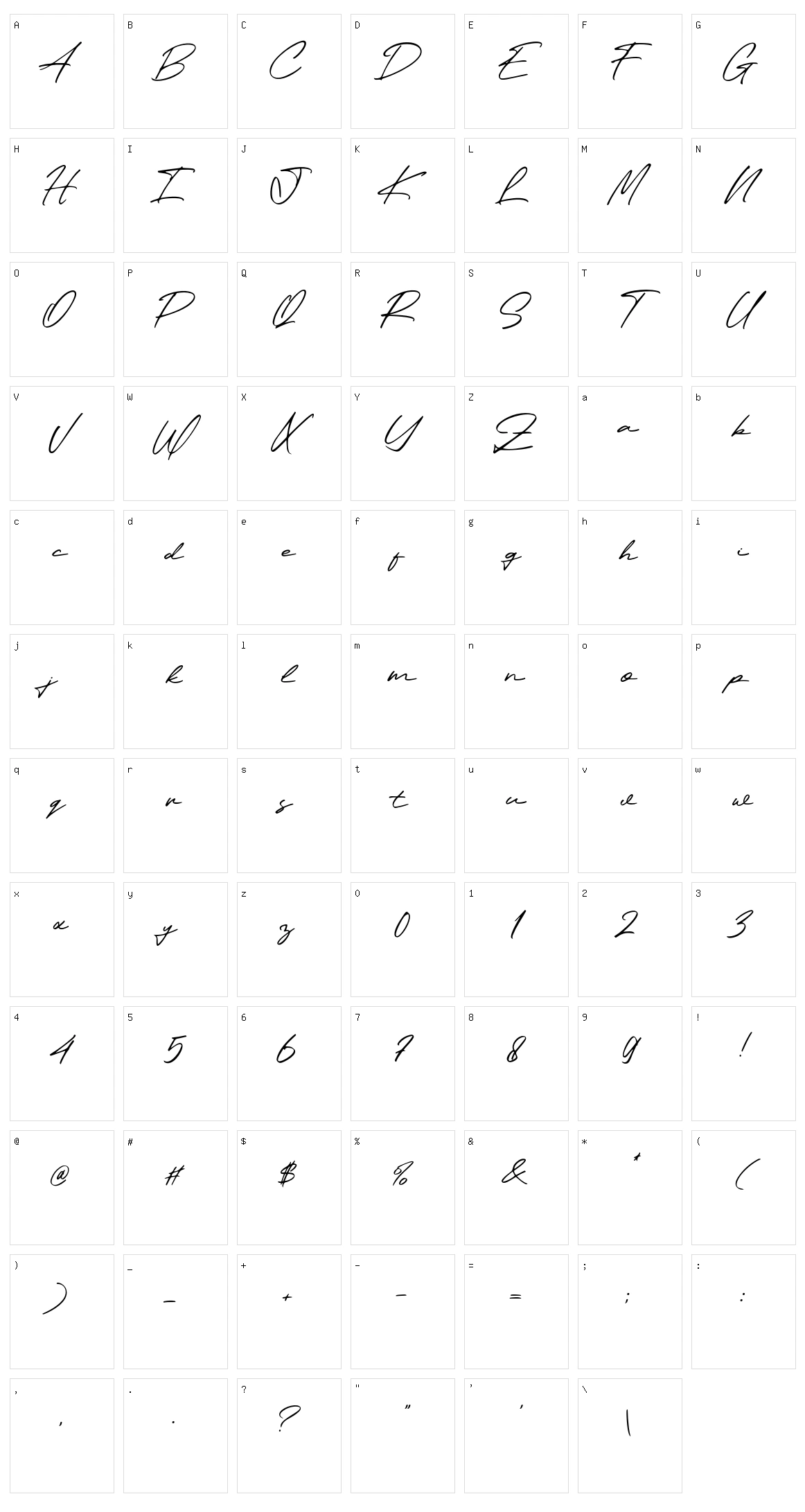
The free font Windpath is carefully designed by Khurasan, showcasing a thoughtful balance of creativity and usability and falls under the Script font style. When you download the ZIP file, it contains only 421.79 KB of font files, making it lightweight and quick to download. Please review the license details below to understand permitted usage and distribution rights. If license information is not available, we recommend using this font for personal projects only or contacting the author directly for commercial usage permissions.